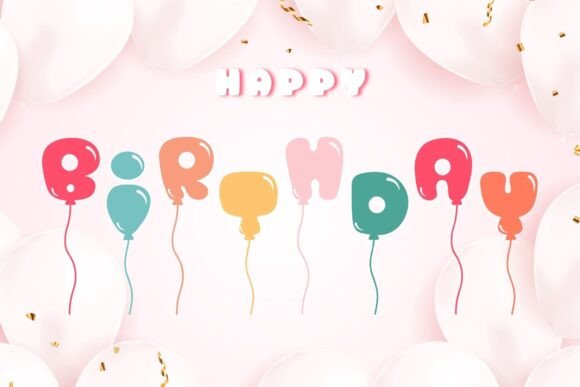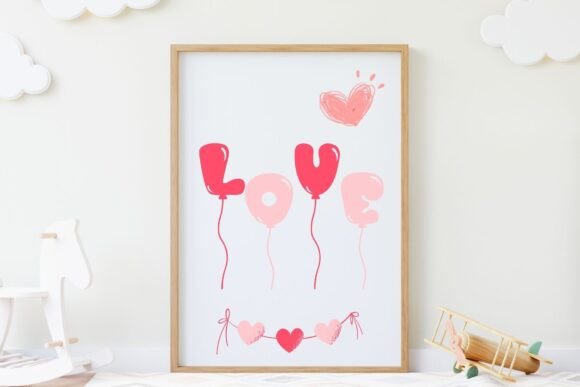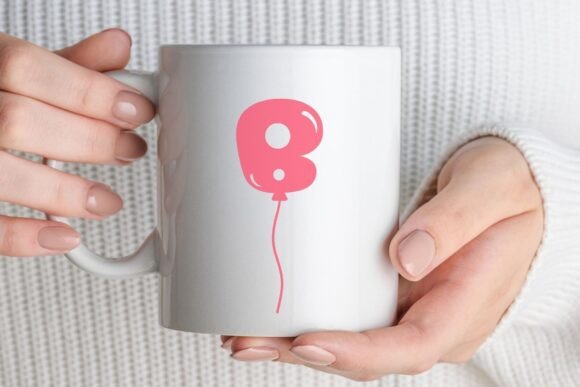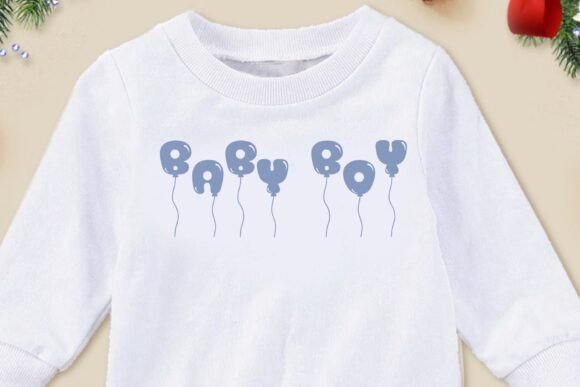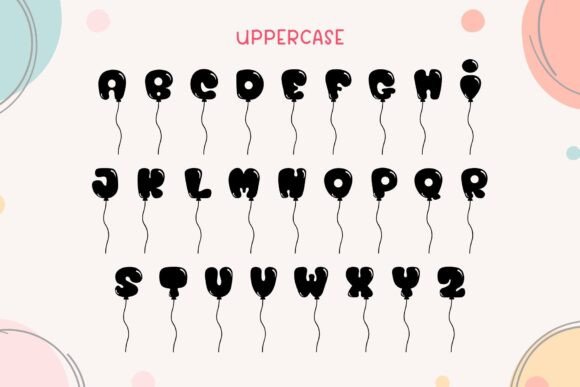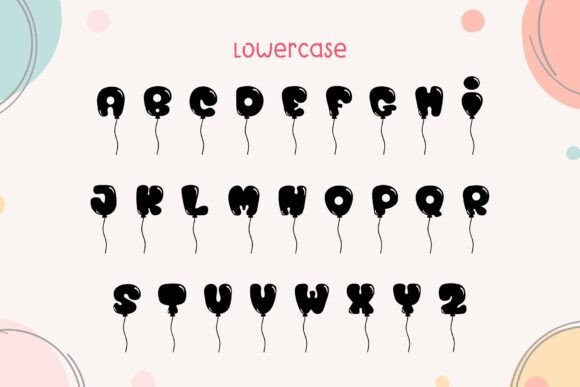
Introducing the Delightful Balloon Font: Elevate Your Designs with a Festive Touch
Are you looking for a font that can add a playful and whimsical touch to your designs? Look no further than the Balloon Font! This delightful decorative font is specifically designed to bring a festive feel to your projects, making it perfect for a variety of creative endeavors. In this article, we’ll dive into the world of Balloon Font, exploring its features, uses, and benefits for designers and crafters.
What is Balloon Font?
Balloon Font is a fun and playful decorative font that mimics colorful balloons with cute strings. Each letter in this adorable bubble-style balloon letter set is carefully crafted to resemble a balloon, complete with a string attached. This unique design element adds a whimsical feel to your designs, making it perfect for projects that require a touch of festivity and playfulness.
Features of Balloon Font
- Festive and Playful Design: Each letter in Balloon Font is designed to look like a colorful balloon with a string, adding a fun and playful touch to your designs.
- Perfect for Kids’ Designs: The cute and whimsical design of Balloon Font makes it an excellent choice for kids’ party invitations, decorations, and activity sheets.
- Versatile and Adaptable: Balloon Font can be used for a wide range of projects, including birthday invitations, greeting cards, party decorations, and more.
Uses of Balloon Font
Balloon Font is a versatile decorative font that can be used for a variety of creative projects. Here are some ideas to get you started:
- Birthday Invitations: Create eye-catching birthday invitations that set the tone for a fun and festive celebration.
- Party Decorations: Use Balloon Font to create party banners, garlands, and other decorations that add a playful touch to your party planning.
- Greeting Cards: Add a personal touch to your greeting cards with Balloon Font, making them perfect for special occasions like birthdays, holidays, and graduations.
- Kids’ Designs: Create engaging and interactive designs for kids, including activity sheets, coloring pages, and educational materials.
Benefits of Using Balloon Font
Using Balloon Font in your designs offers several benefits, including:
- Unique and Eye-Catching Designs: Balloon Font helps you create unique and eye-catching designs that stand out from the crowd.
- Time-Saving: With Balloon Font, you can quickly and easily create festive and playful designs without spending hours on custom illustrations.
- Consistency: Using a consistent font throughout your designs helps to create a cohesive and professional look.
Tips for Using Balloon Font
Here are some tips for getting the most out of Balloon Font:
- Experiment with Colors: Try pairing Balloon Font with different colors and textures to create unique and eye-catching designs.
- Mix and Match: Combine Balloon Font with other fonts and design elements to create a cohesive and visually appealing design.
- Pay Attention to Size: Make sure to adjust the size of Balloon Font to suit your design needs, ensuring that it remains clear and legible.
| Font Name | Balloon Font |
| Author | AnningArts |
Balloon Font is a delightful decorative font that can add a festive and playful touch to your designs. With its unique and eye-catching design, versatility, and ease of use, it’s perfect for designers and crafters looking to create engaging and interactive projects. Whether you’re designing birthday invitations, party decorations, or kids’ materials, Balloon Font is sure to bring a smile to your audience’s faces. So why not give it a try and see how it can elevate your designs to the next level?